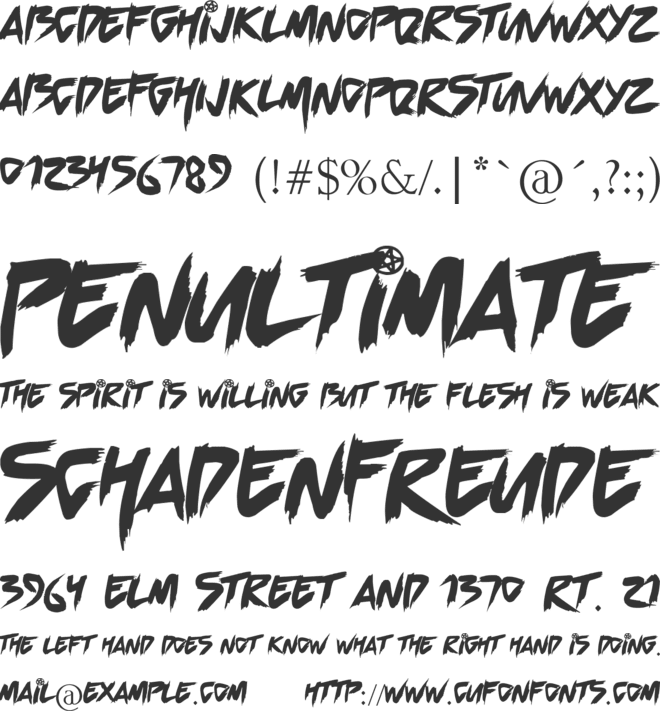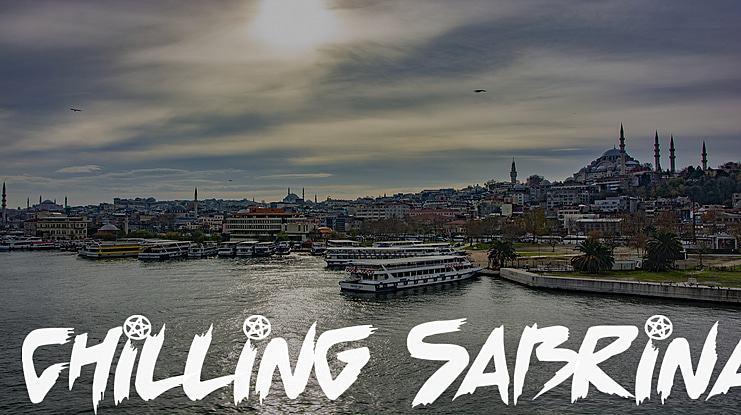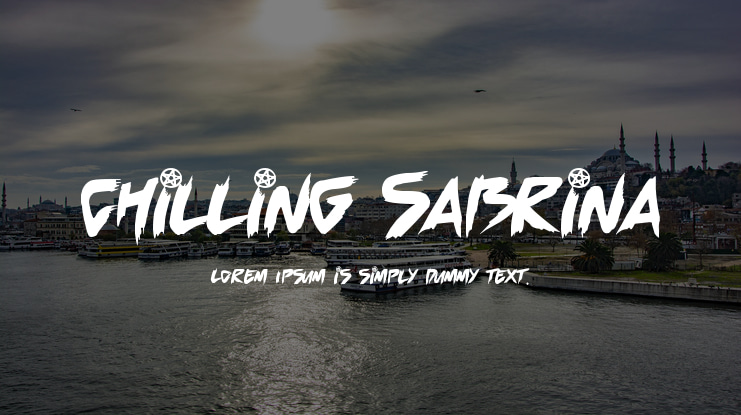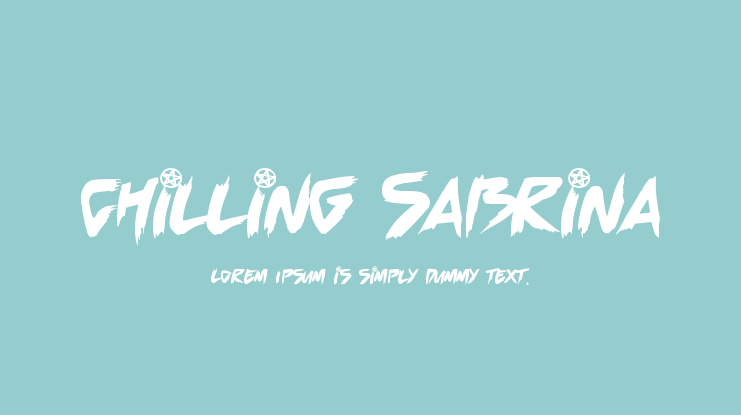
Chilling Sabrina Font
"Chilling Adventures of Sabrina" Based Font, all rights reserved. It contains some variables in lowercase letters. Made by Mawhrt.
-welcome to our coven-